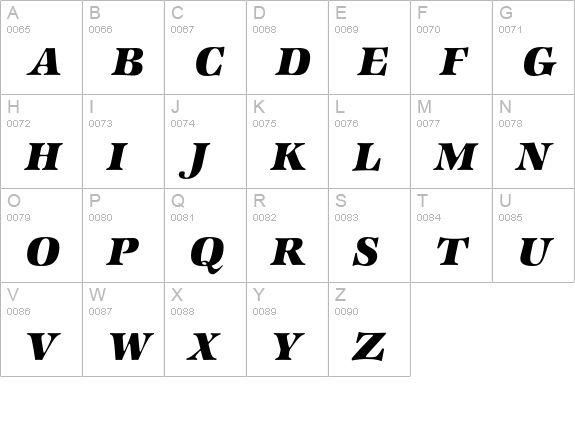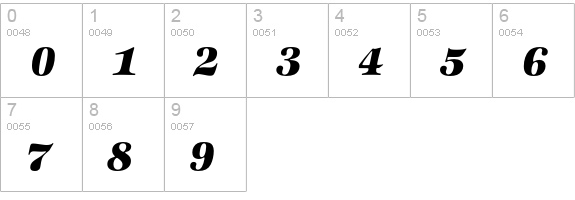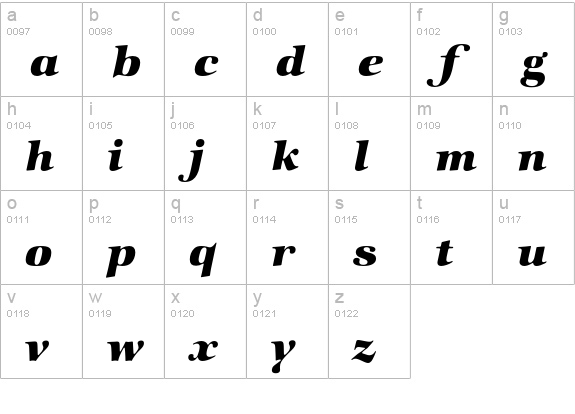
ZapfInternationalEF-HeavyIta Font Details
ZapfInternationalEF-HeavyIta is a bold and stylish font that exudes sophistication and elegance. Its heavy italic style adds a touch of drama and flair to any design project. This versatile typeface is perfect for creating eye-catching headlines, posters, and branding materials. With its unique blend of classic and modern elements, ZapfInternationalEF-HeavyIta is sure to make a statement. The best part is that this font is available for free download at FontsMarket.com. Simply visit the website to access this stunning typeface and enhance your creative projects with its distinctive charm. Don't miss out on the opportunity to add ZapfInternationalEF-HeavyIta to your font collection today!